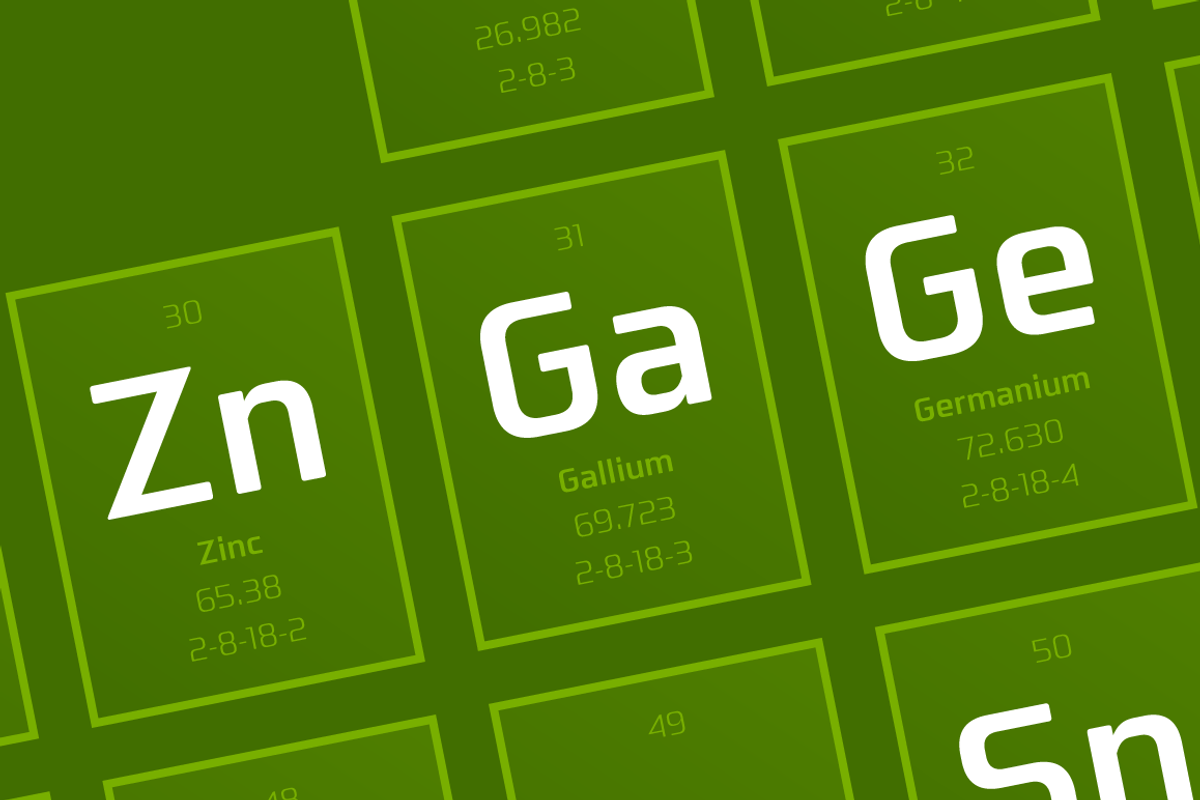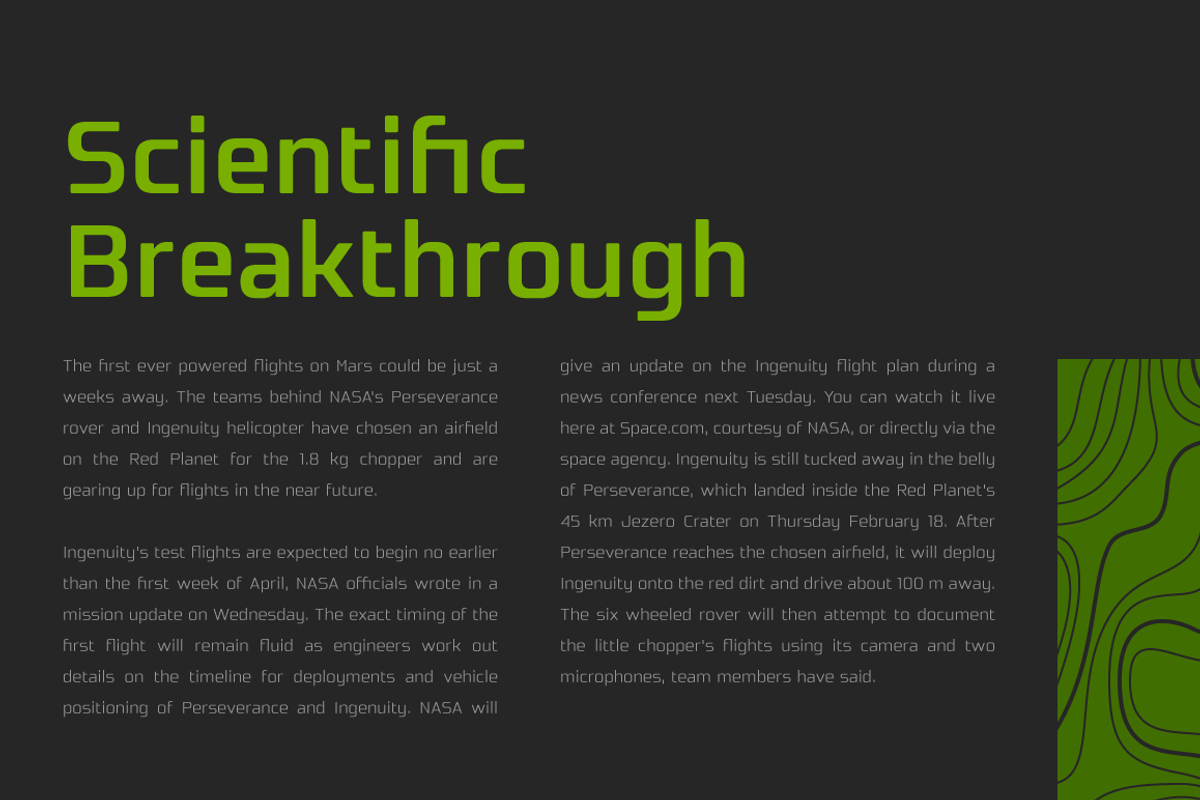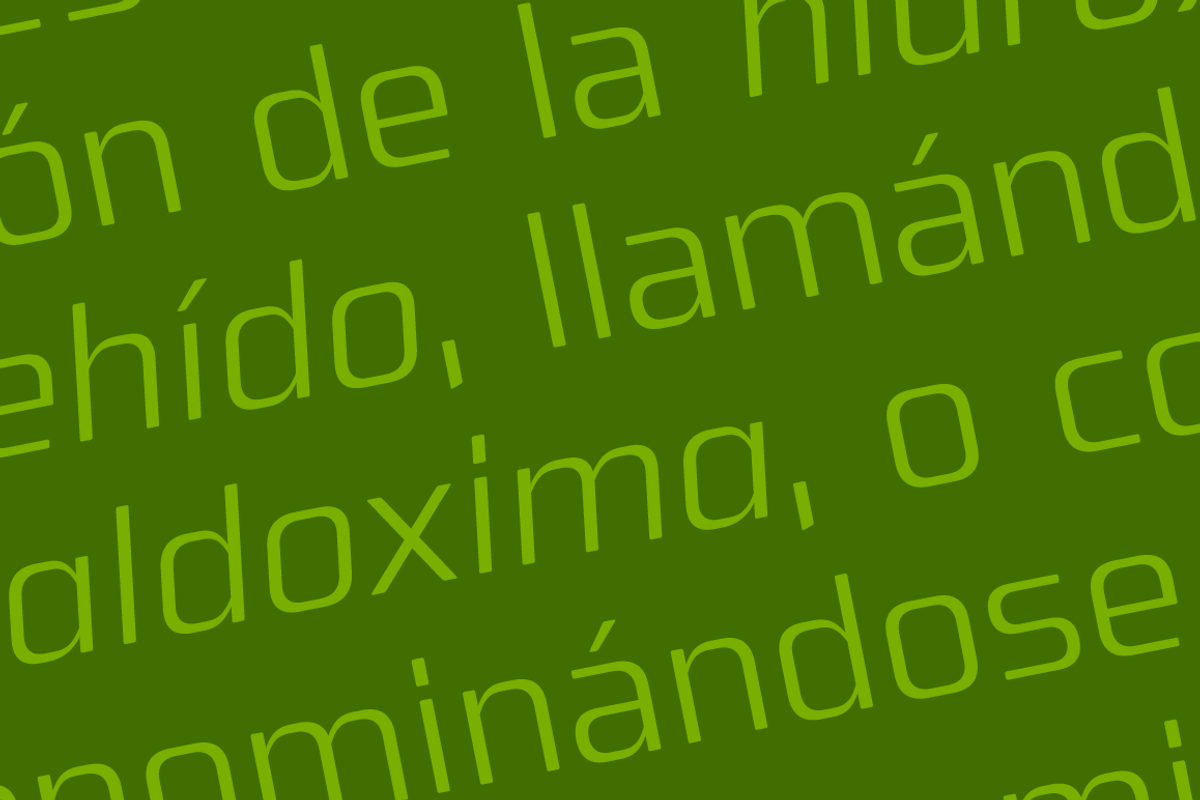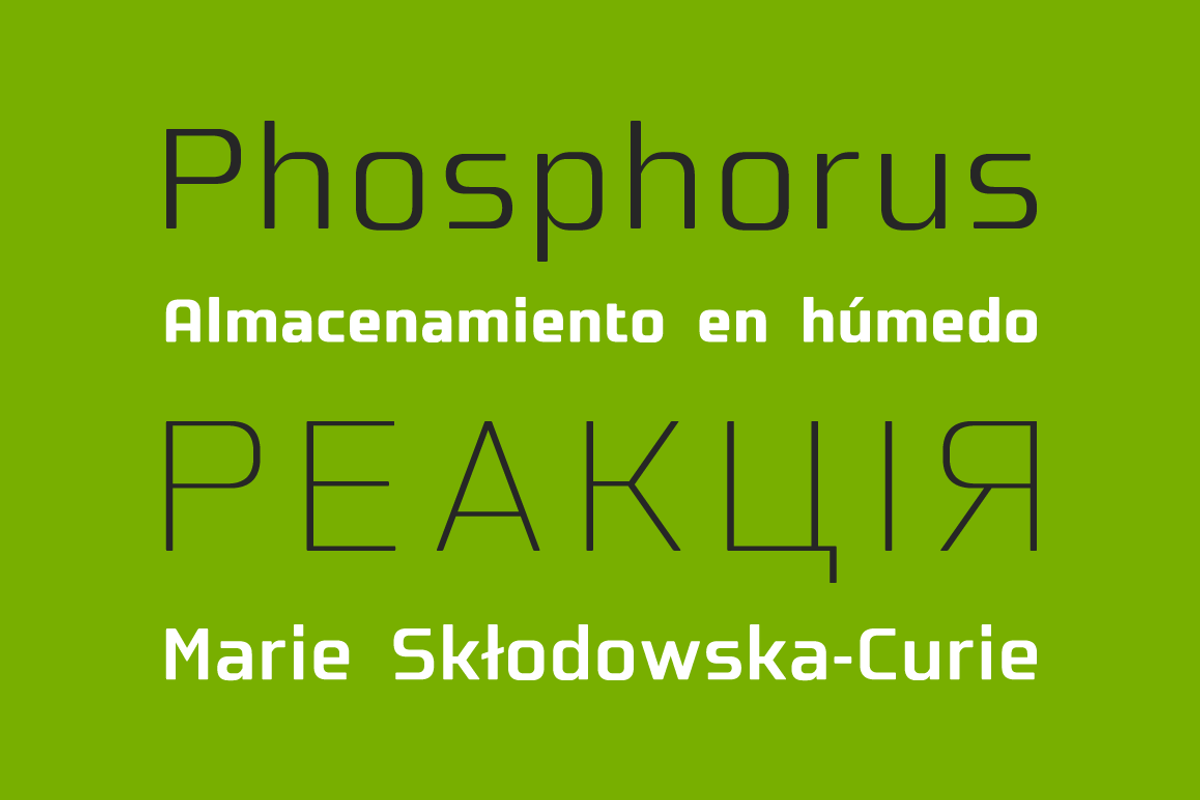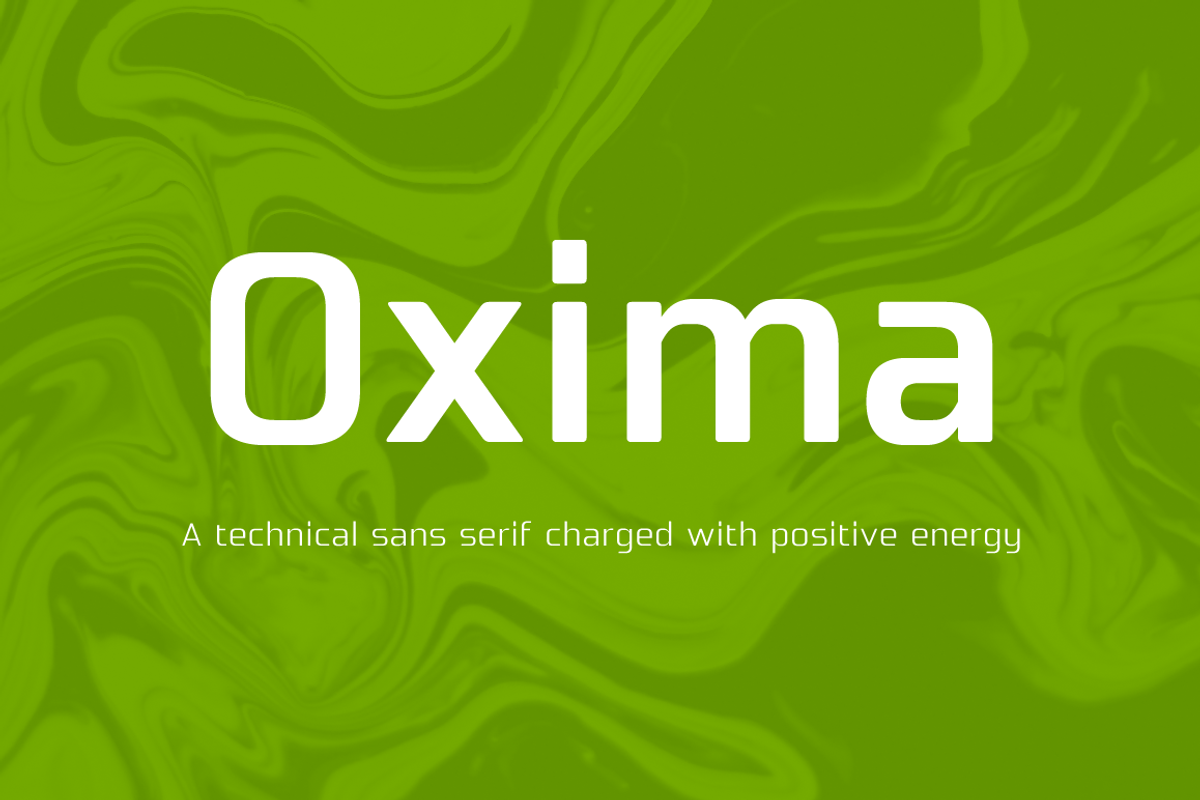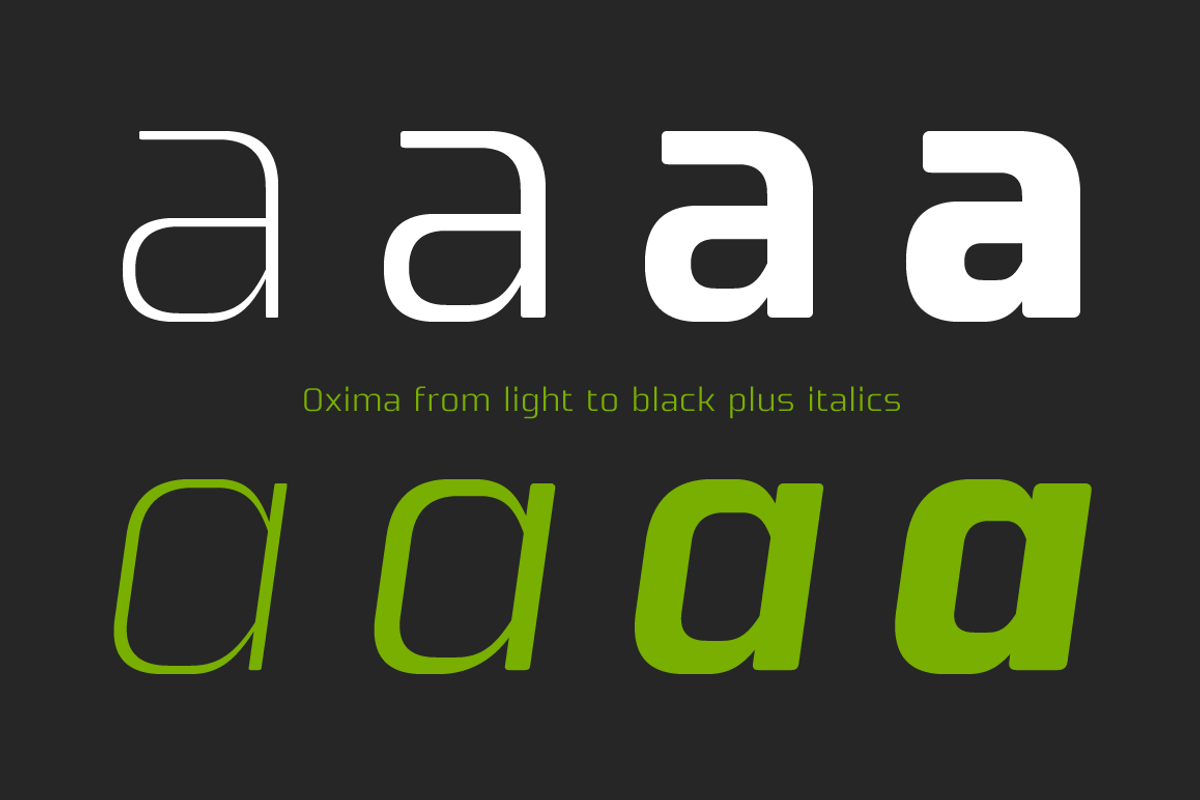
Oxima Font Family
Designer: Pablo Balcells
Design date: 2021
Oxima font family has been designed for Graviton Font Foundry by Pablo Balcells in 2021. It is a technical sans serif typeface with rounded endings that provide a mixture between strong general aesthetics and soft elaborated details. Its strong and industrial, yet legible shapes make it perfect for contemporary and futuristic oriented projects and suitable to be used in any sizes, from headlines to body text and everything in between.
Oxima consists of 8 styles, each containing small caps and glyph coverage for several languages.